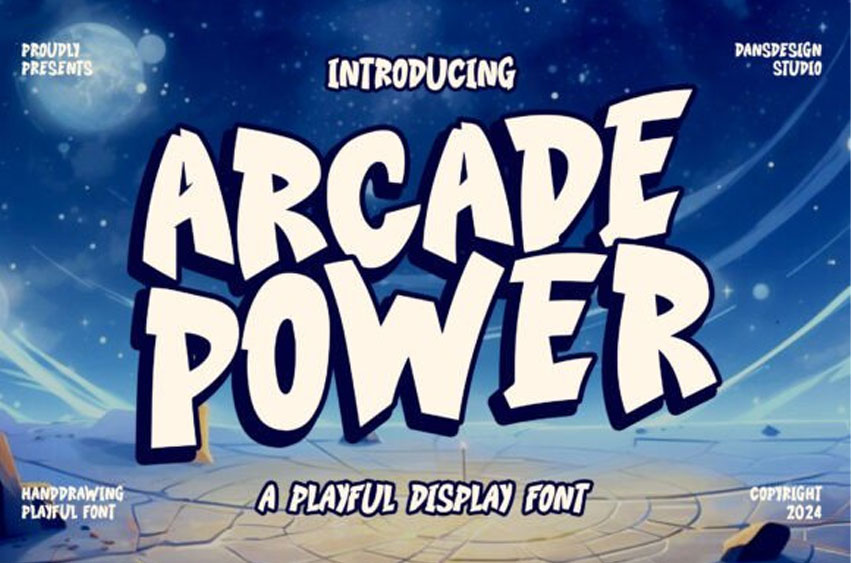
Arcade Power Font
Arcade Power Font is a bold and energetic display font that captures the spirit of retro gaming and animated excitement.
With chunky, hand-drawn letterforms and a comic-style punch, it’s perfect for game titles, youth branding, playful packaging, and nostalgic throwbacks. This font adds instant fun and drama to any design!